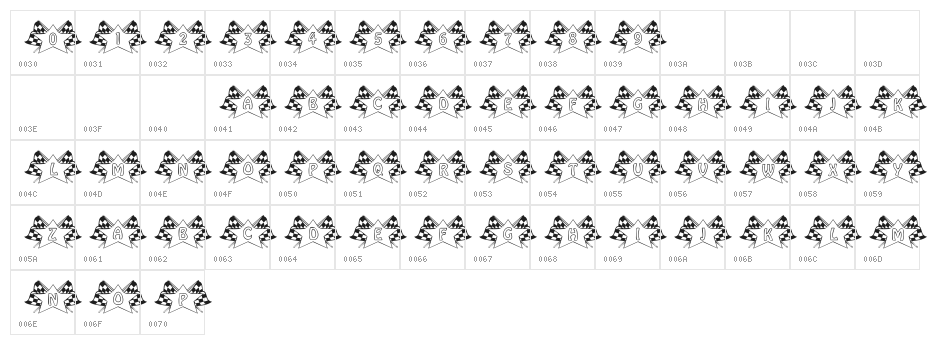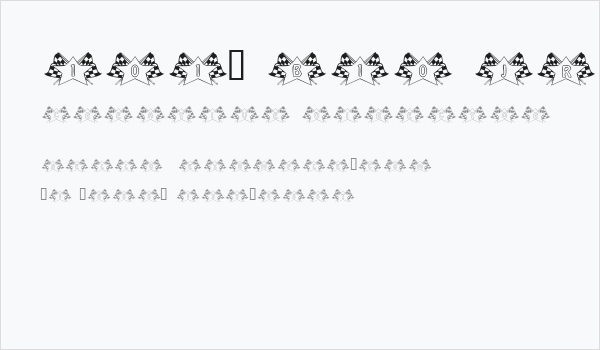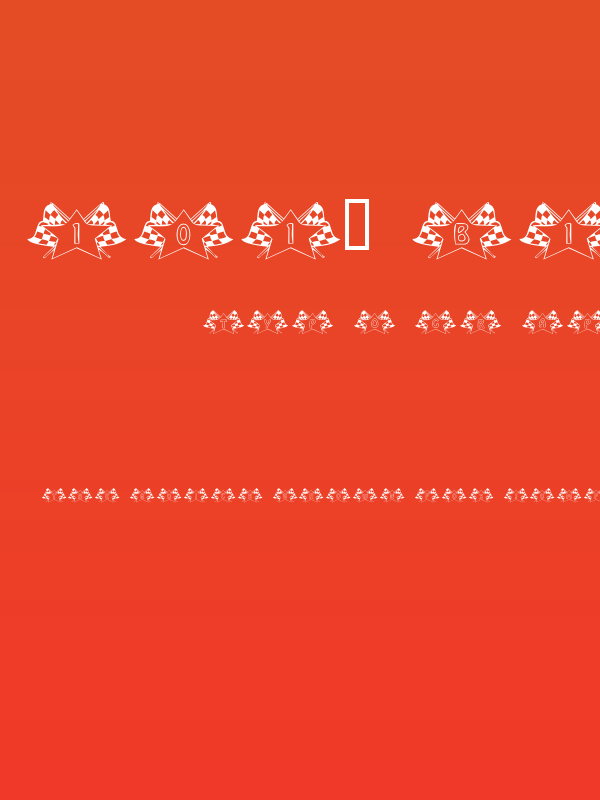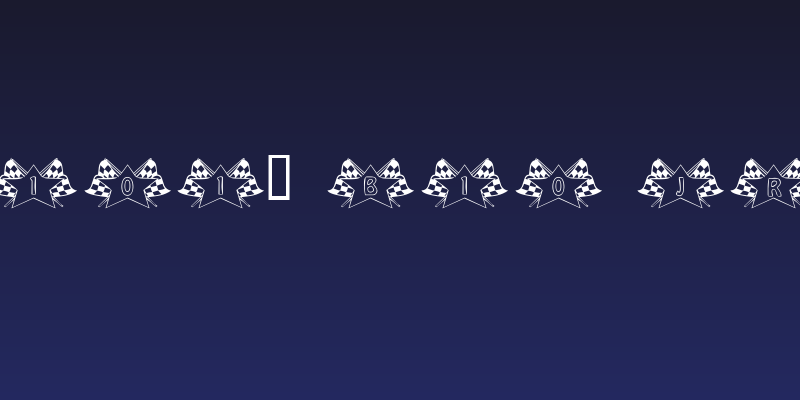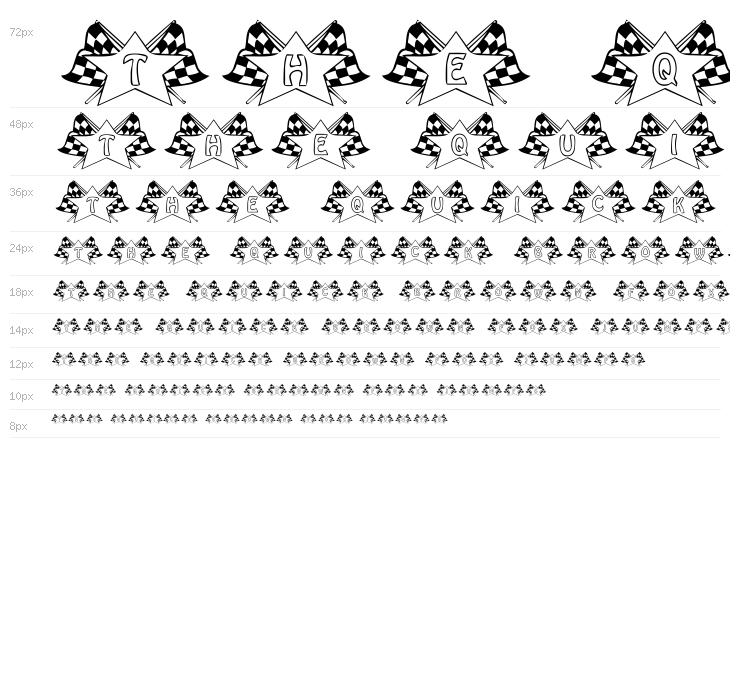
101! B10 Jr Font
101! B10 Jr Description
This decorative font features each character enclosed within a star shape, adorned with a pattern resembling a checkered flag. The letters and numbers are bold and outlined, providing a playful and dynamic appearance. The unique style is consistent across uppercase, lowercase, and numerical characters, making it ideal for thematic designs. The special characters are represented by solid black rectangles, adding a mysterious element to the font. The overall design is eye-catching and suitable for creative projects.
Proposed ProjectsIdeal for children's party invitations, race-themed events, or playful branding materials.